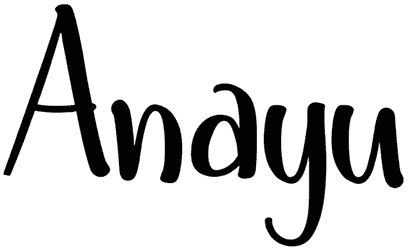
Anayu Font
Have you ever thought about setting up your graphic content, including business cards, branding, logos, or stationery, with the help of a handwritten font such as Anayu? This magical masterpiece comes with delicate and crooked characters, thus it can bring a vibe of softness and professionalism to all of your artwork.